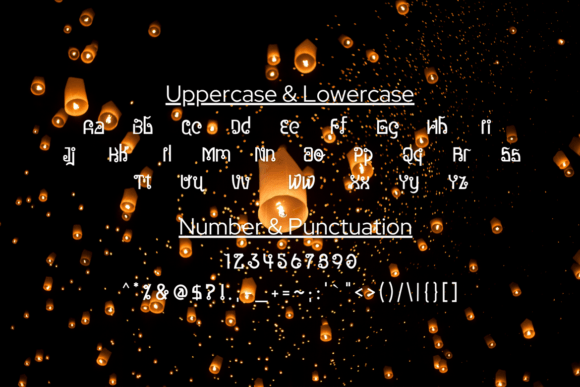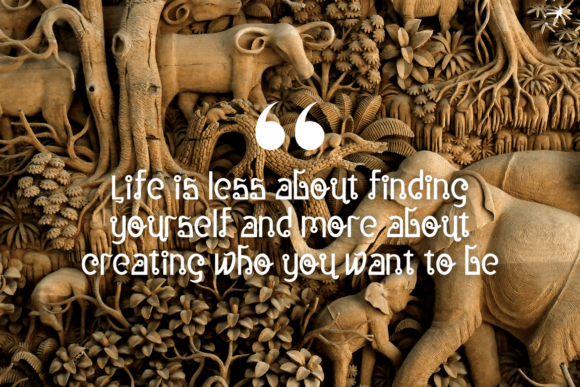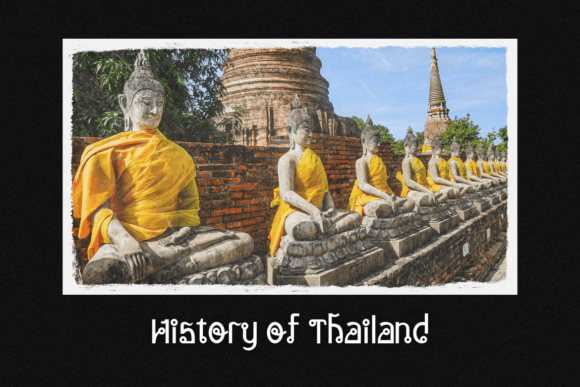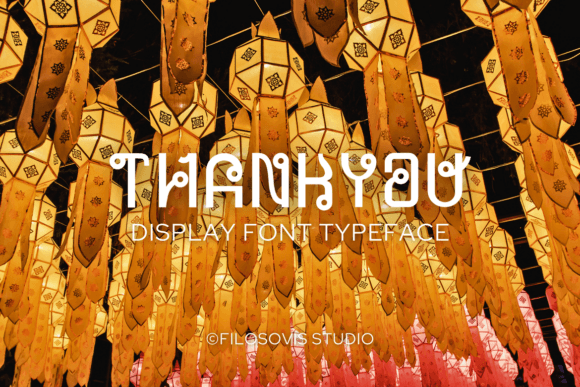
Introduction to Sawahdikap Font
Have you ever found yourself stuck in a creative rut, staring at a blank canvas or a blank screen, waiting for inspiration to strike? For designers, this feeling is all too familiar. But what if you had the perfect tool to spark your imagination and bring your vision to life? Enter the Sawahdikap Font, a versatile and high-quality design resource that’s about to become your new best friend.
Designed to be adaptable across various media formats, the Sawahdikap Font is the perfect solution for any creative project that requires a clear and concise visual message. With its semi-modular sans-serif design, it’s easy to see why this font has become a favorite among designers. Whether you’re working on a project that requires a transparent background or a bold, eye-catching display, the Sawahdikap Font is sure to deliver.
Key Features of Sawahdikap Font
- High-quality design for creative projects, perfect for use in digital design and print media.
- Unique characteristics: the Sawahdikap Font features a modern, elegant design with a touch of sophistication, making it ideal for use in high-end creative projects.
- Designed to be versatile, the Sawahdikap Font can be used in a variety of contexts, from logos and branding to digital graphics and print materials.
Honest Review: Sawahdikap Font
I recently had the chance to work with the Sawahdikap Font in one of my creative projects and I must say, it was a pleasant experience. ✨ The font is a great addition to any design resource, offering a unique and eye-catching aesthetic that’s sure to grab attention.
One of the standout features of the Sawahdikap Font is its transparent background, which makes it incredibly versatile and easy to use. I found it to be a great asset in designing a wide range of materials, from brochures to social media graphics.
- High quality and crisp typography
- Unique and creative design style
- Some characters may appear pixelated when enlarged
- Limited language support (works best with Latin-based languages)
Overall, I’m impressed with the Sawahdikap Font and would definitely recommend it to designers looking for a high-quality, creative font for their next project.
Common use cases for the Sawahdikap Font include:
- Branding materials
- Advertising materials